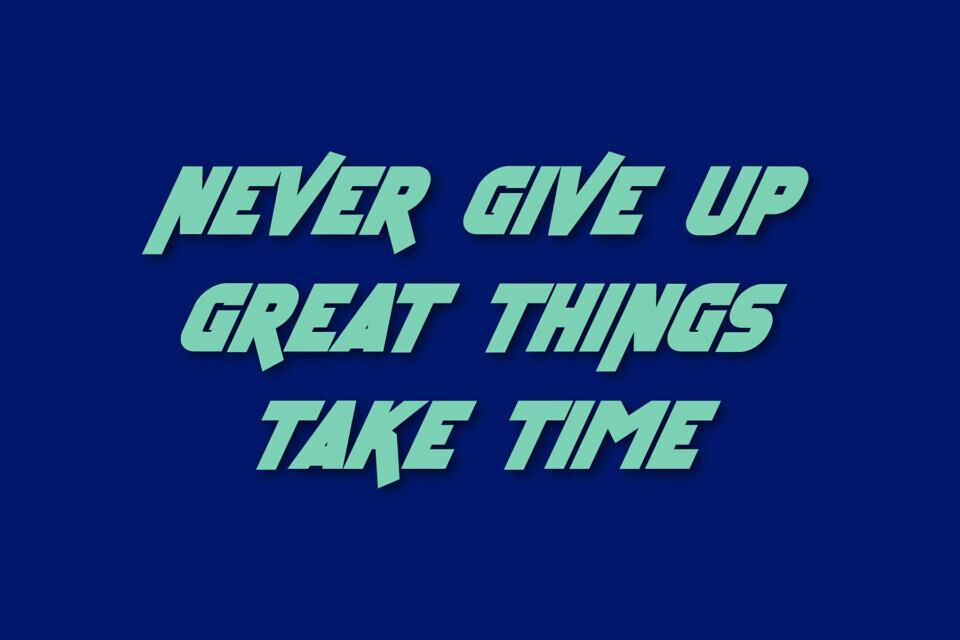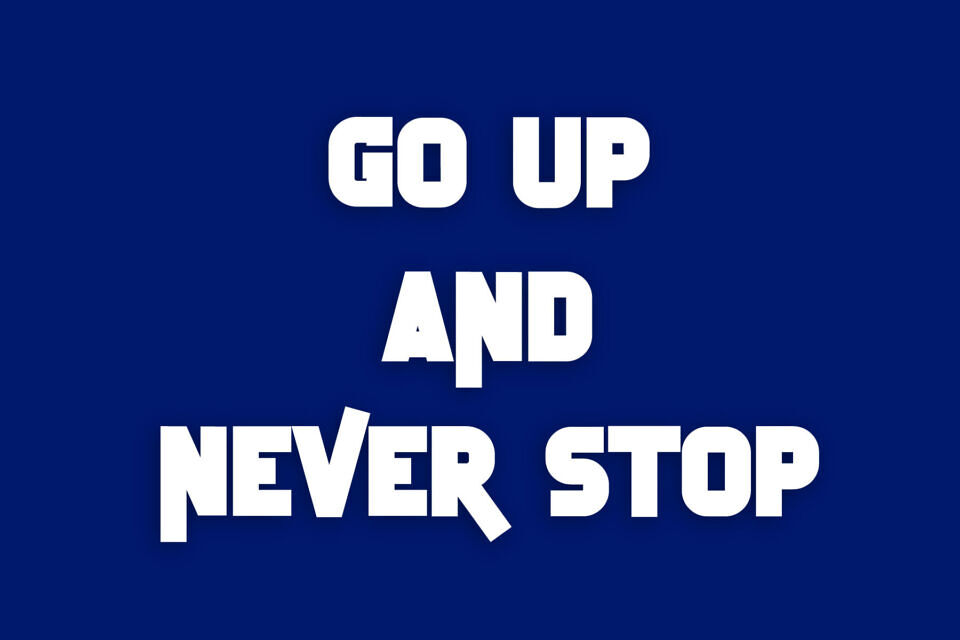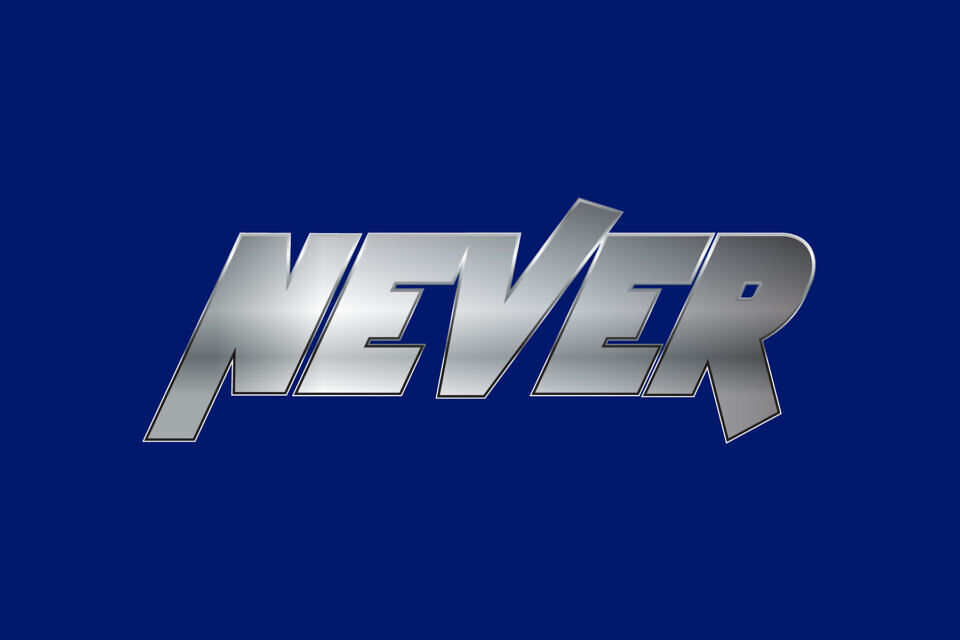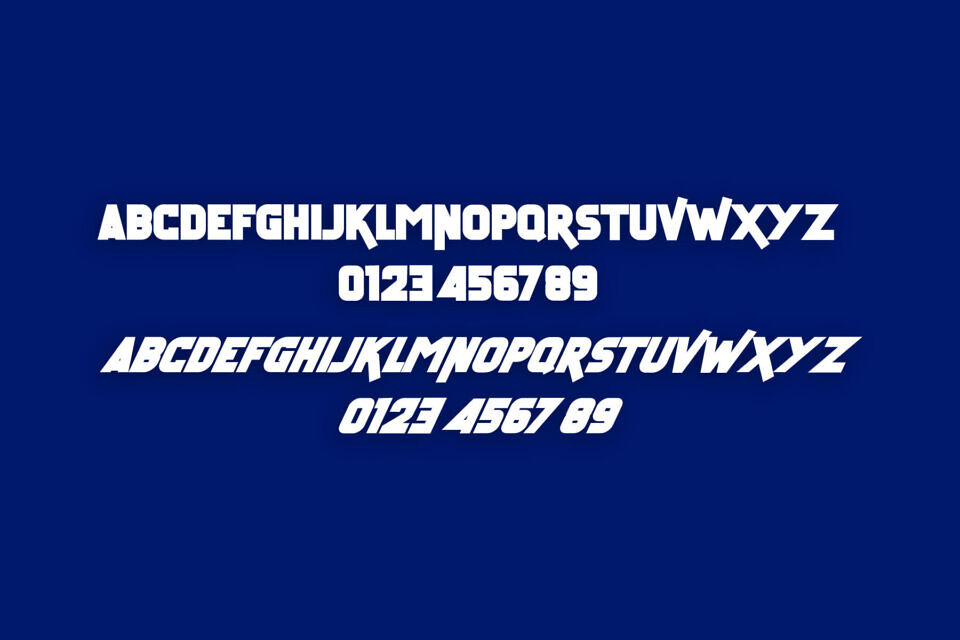
Never is a cool, bold looking and techno inspired display font. This font is ideal for writing web designs or developing any project related to speed, power or sports.